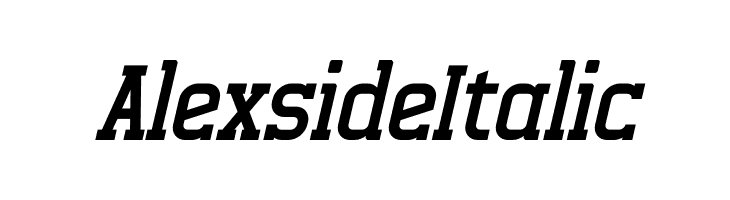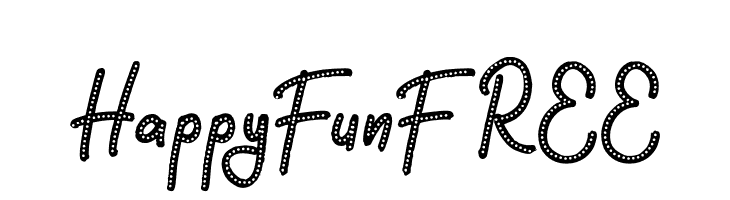
A bold, brush-style font with expressive, hand-painted strokes.
A bold, dynamic font with thick, slanted letters conveying power and motion.
A playful, hand-drawn font with tall, narrow characters and a whimsical style.
A playful, handwritten font with fluid, connected strokes and a whimsical charm.
A sleek, geometric italic font with a modern, technical style.
A dynamic, handwritten font with elongated, slanted characters.
A playful, handwritten font with smooth, flowing lines and a casual style.
A playful, casual handwritten font with smooth, flowing lines.
A bold, 3D font with a vintage, impactful style.
A sleek, modern italic font with elongated, narrow characters.
设计师偏爱 Pantara, Team Galaxy Leftalic, Summer Macaron, Handmade Wonderland and Bretton Super-Italic,因为其造型干净、适用范围广—— 从品牌识别到落地页、海报都能胜任。